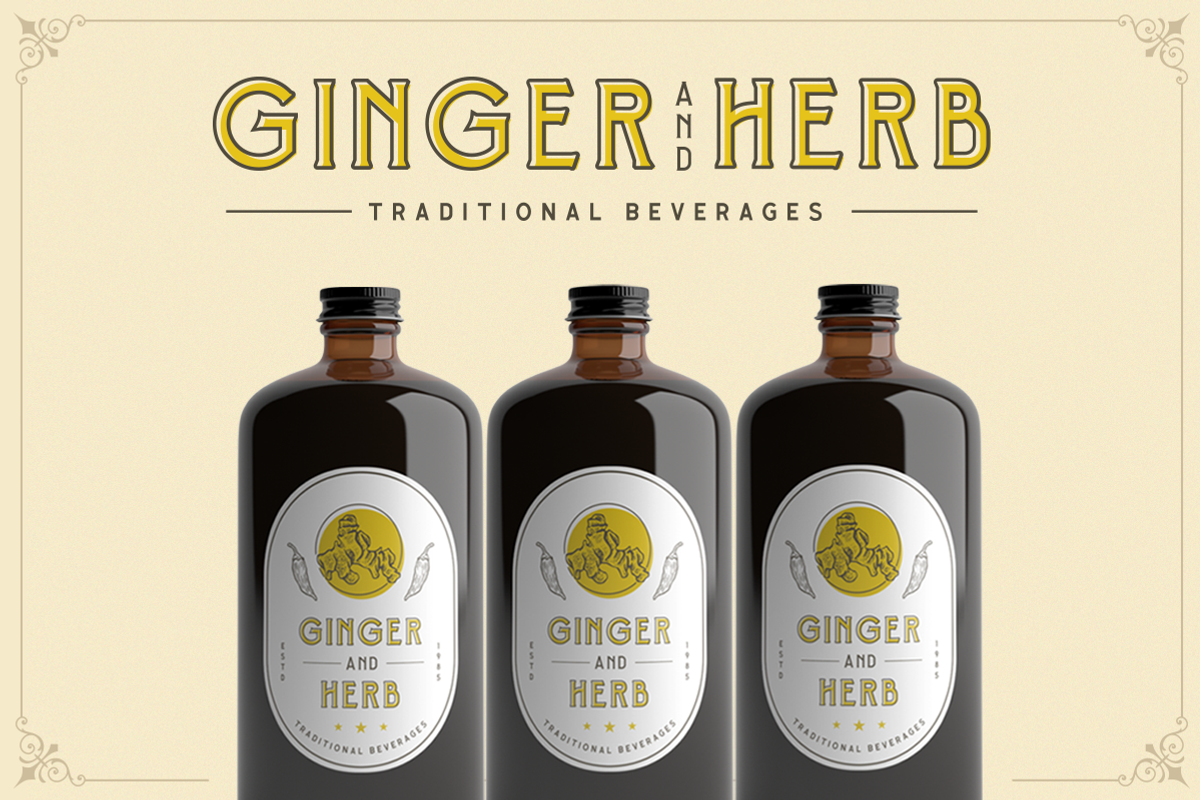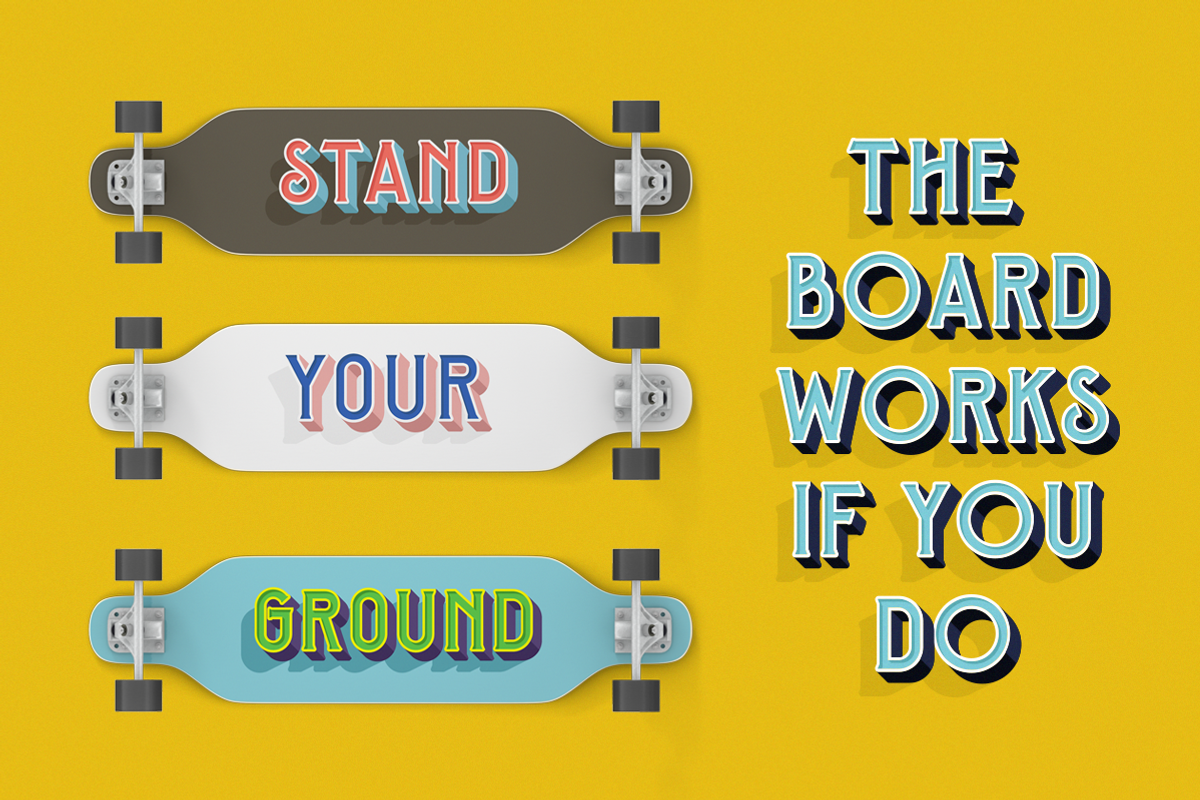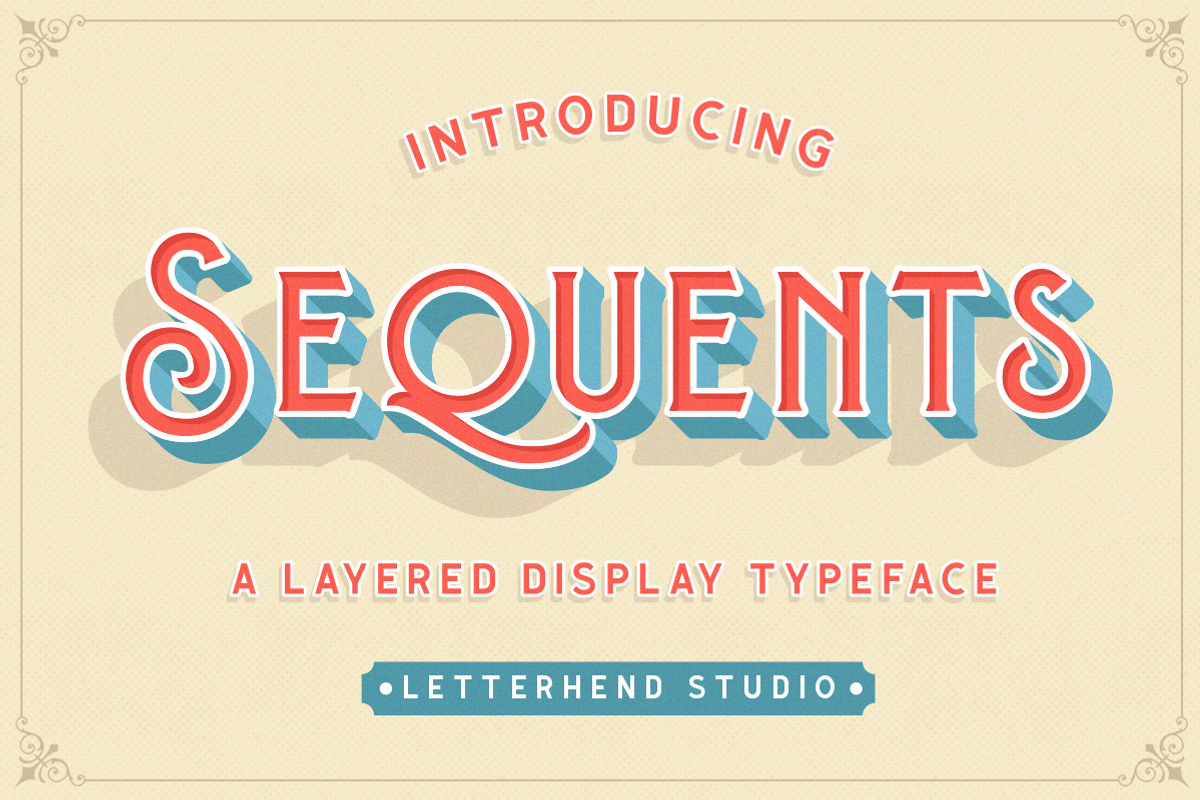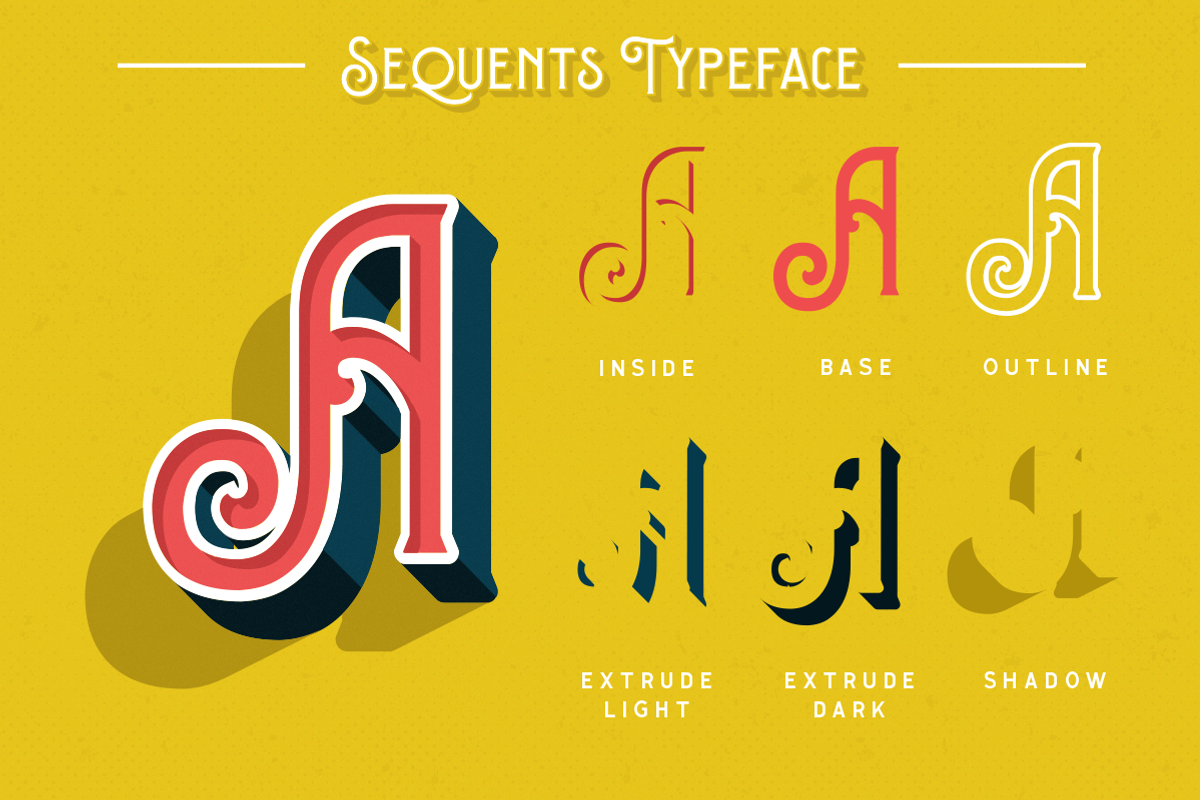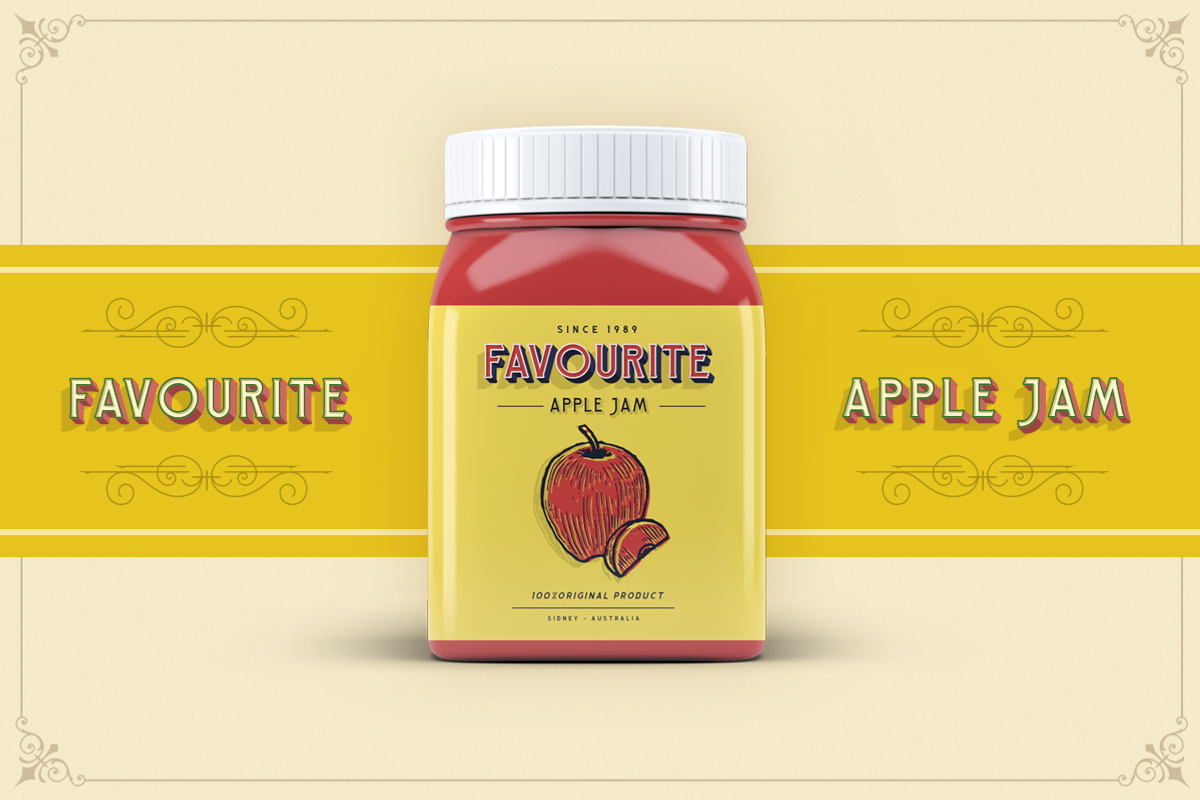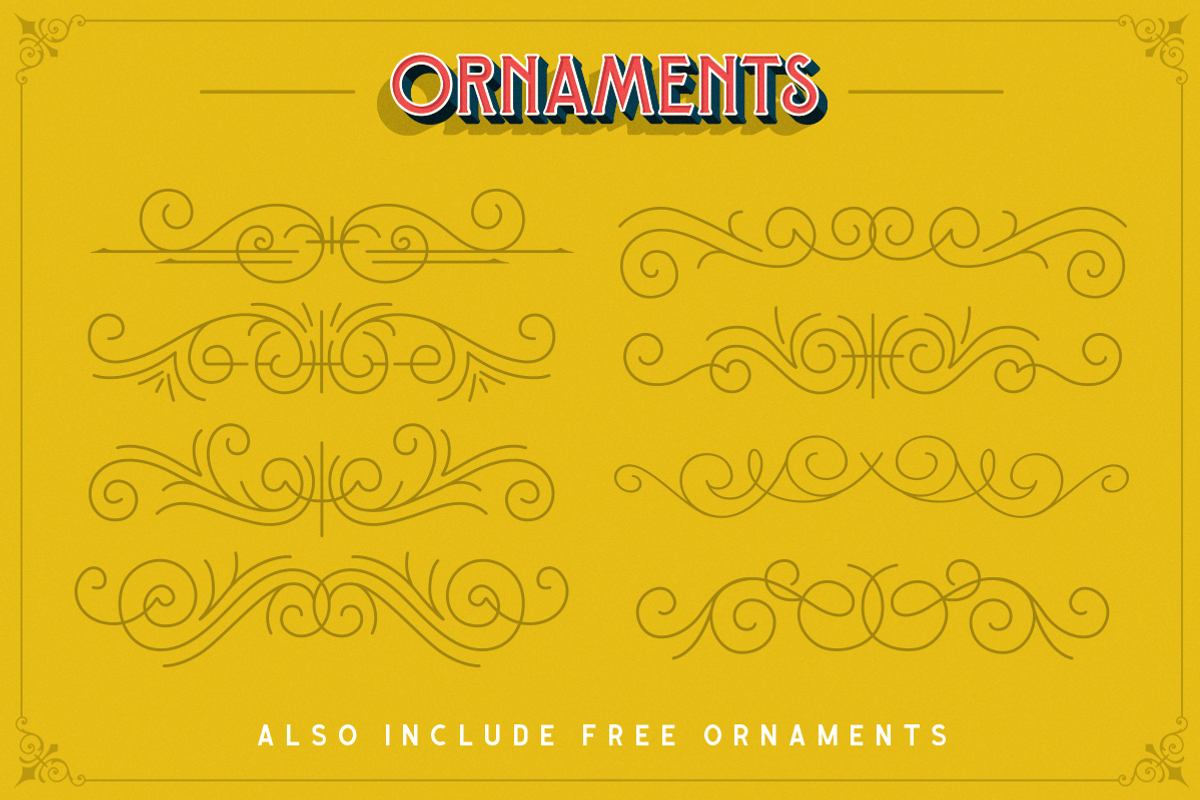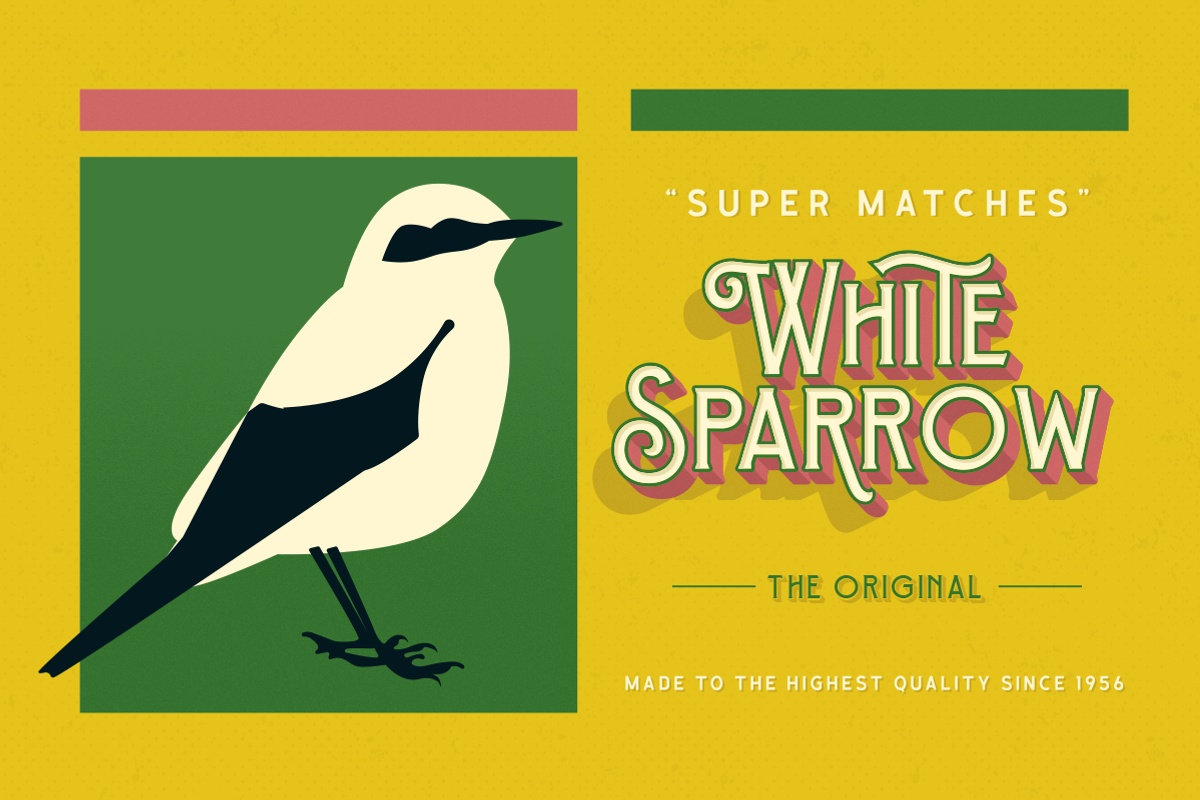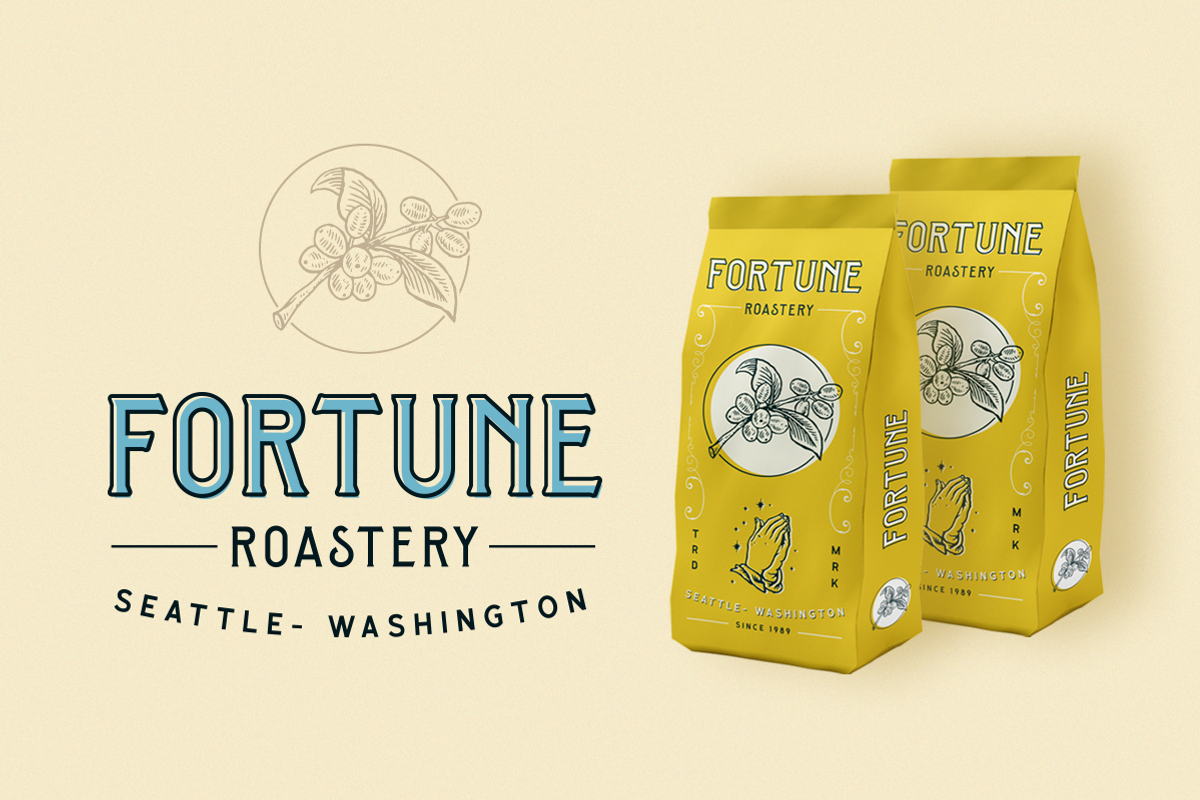
Sequents - Layered Font (+ORNAMENT)
Introducing, Our new layered font, SEQUENTS!
Sequents is a sans serif font with 6 layered style. You can create 3D look without using any add-on, only with fonts! This font is suitable for a vintage poster, 3d type, or retro Including number and punctuation, also support multi language. This font also contain a bunch of alternates! Create your own 3D type now!
- This font is suitable for a vintage poster, 3d type, or retro Including number and punctuation, also support multi language.
- This font also contain a bunch of alternates!
Why Sequents - Layered Font (+ORNAMENT) is worth a look
Sequents - Layered Font (+ORNAMENT) by Letterhend Studio fits naturally into Branding, posters, packaging, typography.